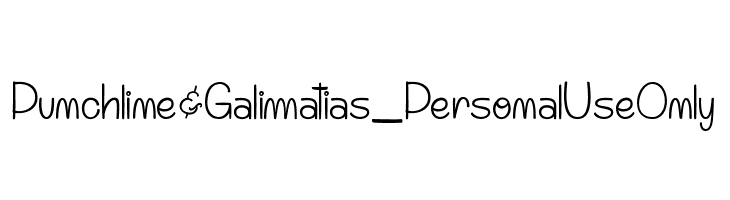
A playful, handwritten font with elongated, whimsical characters.
A bold, brush-style font with dynamic, textured strokes.
A thin, geometric font with a modern and sophisticated style.
A double-line script font with elegant, flowing connections and smooth curves.
A bold, energetic script font with a handwritten feel.
A dynamic and elegant cursive script font with a flowing style.
A modern, minimalist font with thin, uniform strokes and excellent readability.
A playful, handwritten font with decorative, flowing strokes.
A playful, outlined font with a dynamic, italicized style.
A sophisticated cursive font with elegant, flowing strokes.